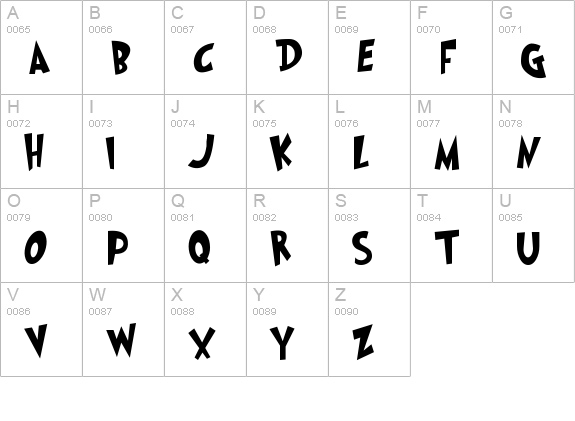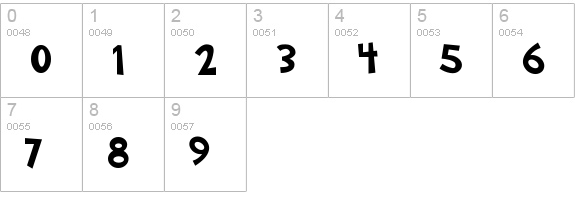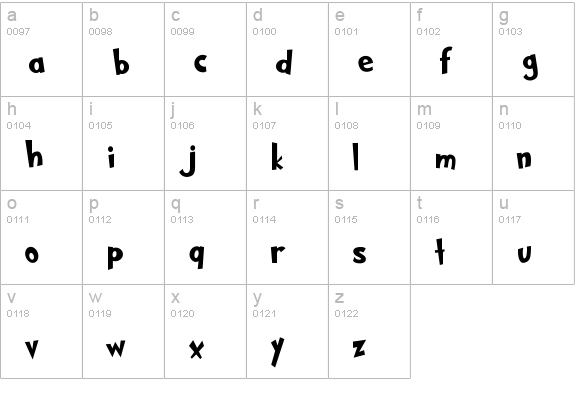
Grinched 2.0 font is a delightful and whimsical typeface that is sure to bring a touch of holiday cheer to any design project. With its playful and mischievous appearance, it captures the essence of the beloved Grinch character, making it perfect for adding a festive twist to your designs. This font features uniquely designed letters that are reminiscent of the Grinch's handwriting, with uneven strokes and quirky shapes that give it a handcrafted feel. The bold and exaggerated curves add an element of fun and excitement, making it an excellent choice for headlines, titles, and other eye-catching elements. What makes Grinched 2.0 font even more appealing is that it is freely available to download at FontsMarket.com. This means that you can easily access this charming typeface without any cost, making it a fantastic option for both personal and commercial projects. Whether you're designing holiday-themed invitations, greeting cards, posters, or any other project that could use a touch of whimsy, Grinched 2.0 font is sure to make a lasting impression. Its unique and playful design will instantly grab the attention of viewers, adding a sense of joy and excitement to your designs. So why wait? Take advantage of this wonderful opportunity and download Grinched 2.0 font for free at FontsMarket.com. Let your creativity shine and spread some holiday cheer with this delightful typeface that captures the spirit of the Grinch in a truly unique way.